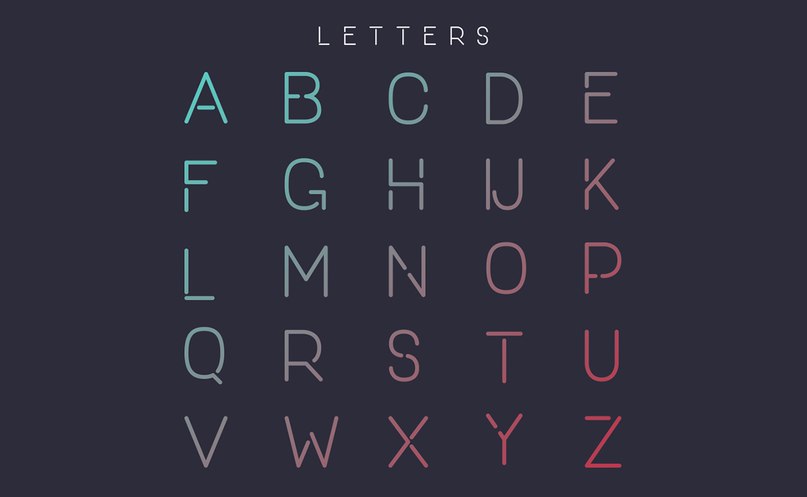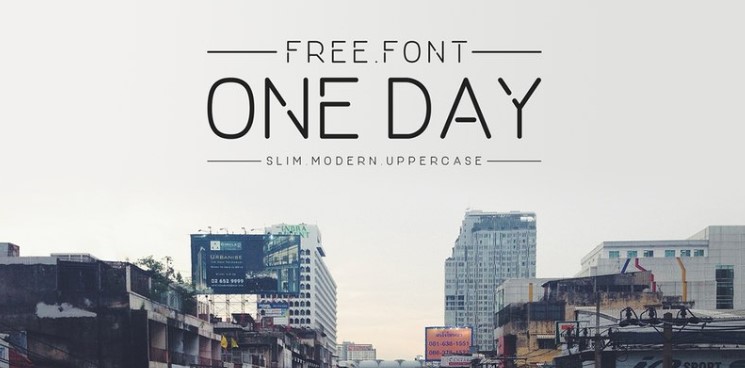
Oneday Font
Here is the oneday Font that is a coves typeface that is similar to the aqua font. This typeface is also listed inside the google fonts. Despite the fact that there is a selection of typefaces who’re studying its capabilities. Back in that point, the artist used to experiment with distinct forms of typefaces as an instance they would combine simplicity with a diffused friendliness.
This font was designed to compare breeze font Really, Helvetica is the most heavily used font with the resource of way of professionals (and moreover through the not so professional) in image format.so in case you’ve ever felt a touch out of the area with regards to fonts. Oneday Font Free The usage of typography as a superb format detail inside the present-day traits, way google fonts is now a more valuable useful resource than ever. A more bold font also can be located with its low x-pinnacle. Campton font became used in many Hollywood movie posters and it becomes broadly speaking utilized in remotely anything that had to do with faith, elegance, or marriage beyond.so that you can use this font one might want a license.